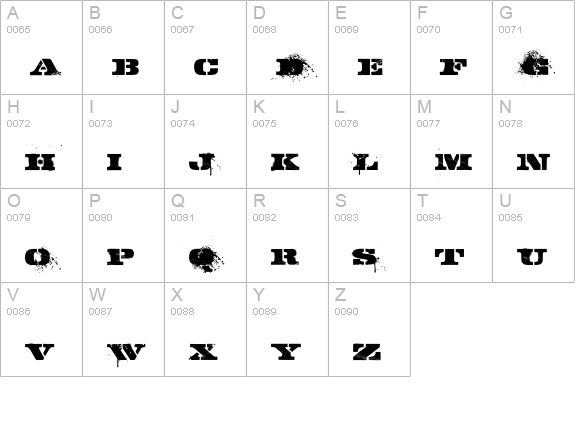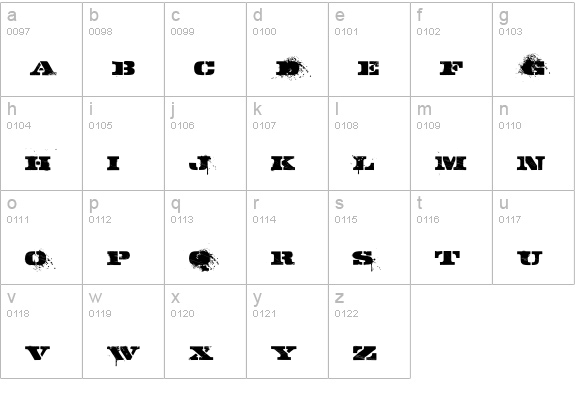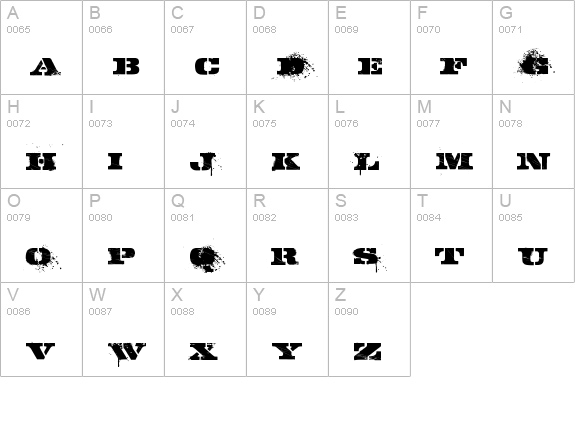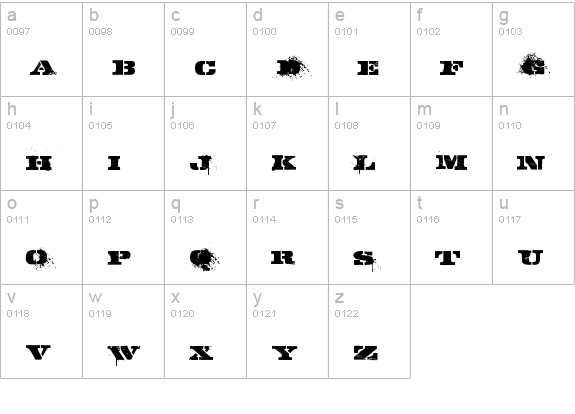
GASMASK Font Details
GASMASK font is a striking and bold typeface that emanates power and strength. Its unique design captures the essence of a gas mask, with its sharp angles and strong lines. This font is perfect for projects that demand attention and make a bold statement. With its clean and legible characters, GASMASK font is versatile and can be used in a variety of design projects. Whether you're working on a poster, logo, or website, this font will add a touch of edginess and modernity. One of the best features of GASMASK font is that it is free to download. You can easily access this font at FontsMarket.com, a reputable platform for high-quality fonts. With just a few clicks, you can have this powerful typeface in your design arsenal, ready to elevate your creative projects. GASMASK font is not only visually captivating but also highly practical. It is easy to read even at smaller sizes, ensuring that your message is conveyed clearly to your audience. Its bold and commanding presence will grab attention and leave a lasting impact. Whether you're a professional designer or an enthusiastic hobbyist, GASMASK font is a must-have in your collection. Its versatility, striking design, and the fact that it is freely available for download at FontsMarket.com make it an excellent choice for anyone looking to make a statement with their designs. Don't miss out on this opportunity to enhance your creative vision with GASMASK font.